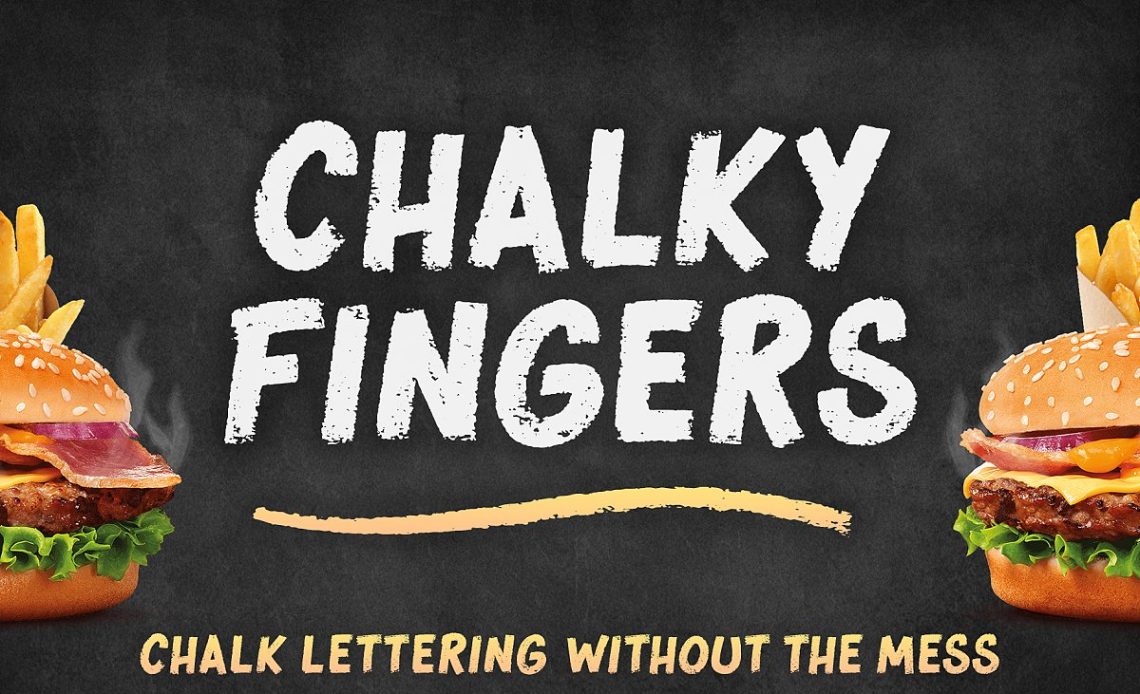
Chalk lettering without the mess! A rough textured font, hand-drawn with real artists’ chalks and perfect for use on restaurant & cafe menu boards, signage, posters, displays, t-shirts, social quotes, children’s books and food packaging.
Chalky Fingers includes loads of swashes and arrows to give extra emphasis to your messages. Numbers, punctuation and multi-language characters are all included.